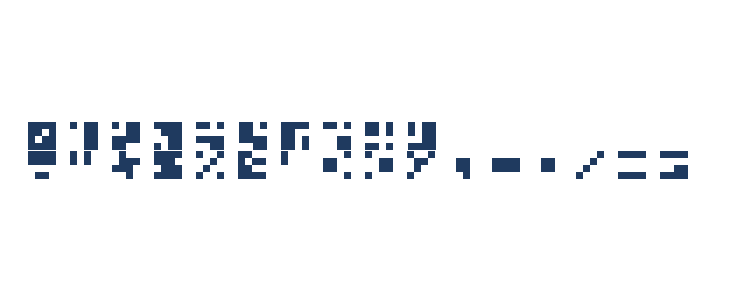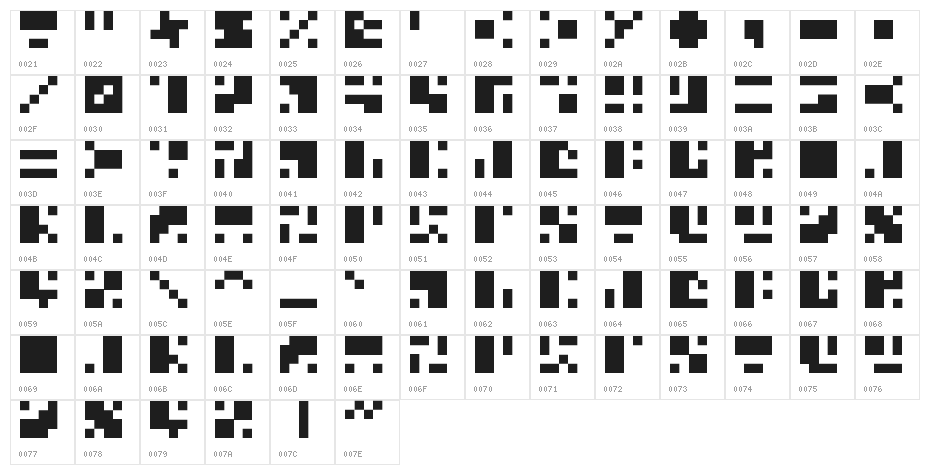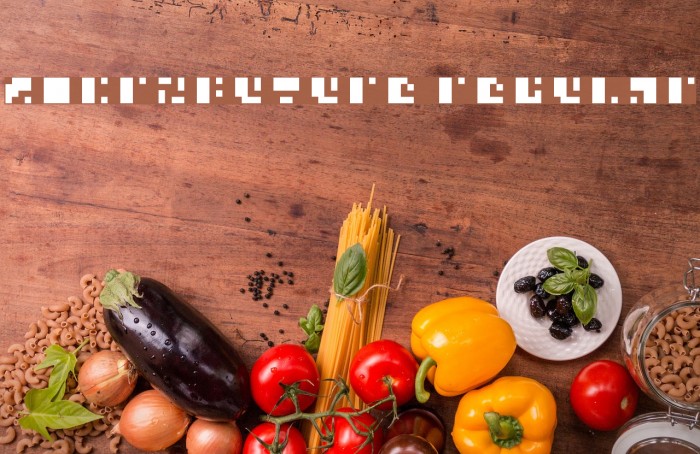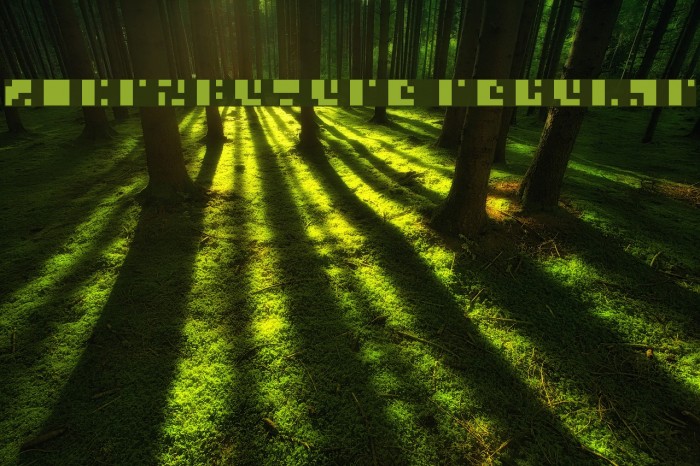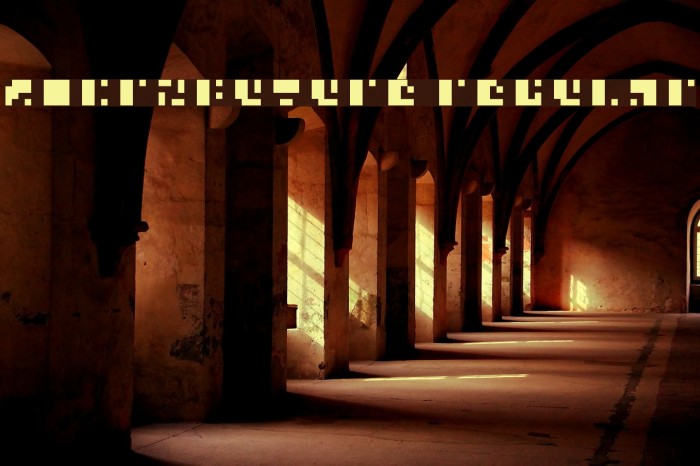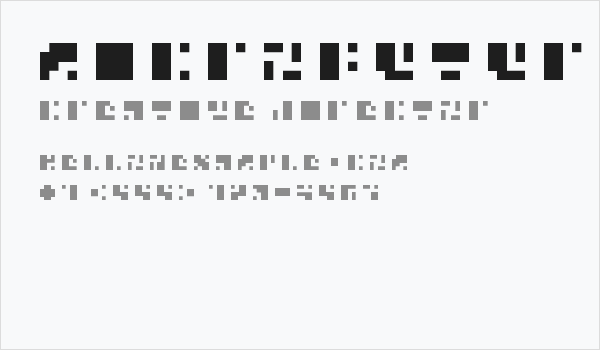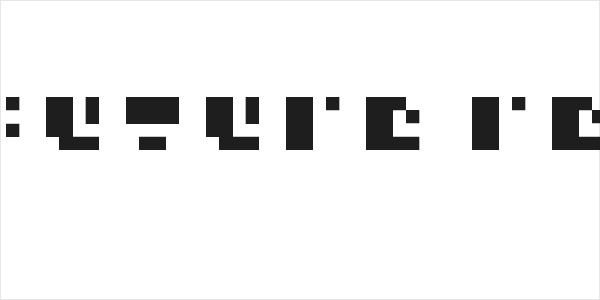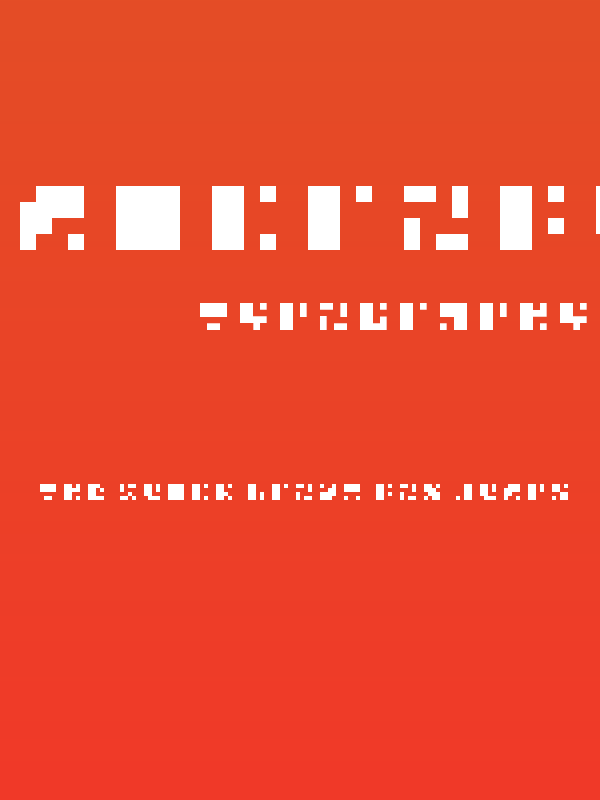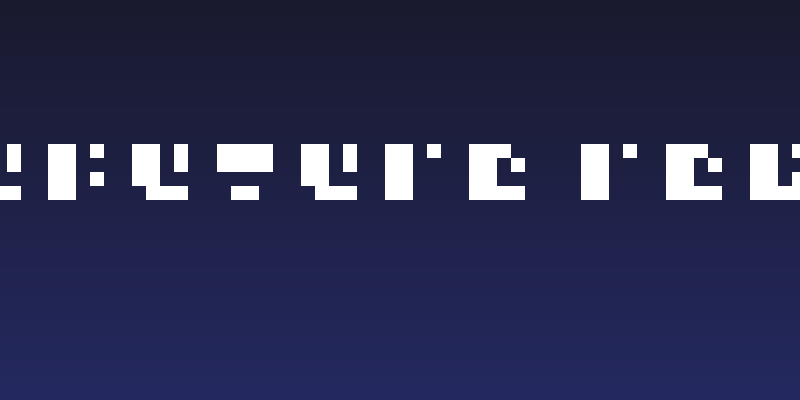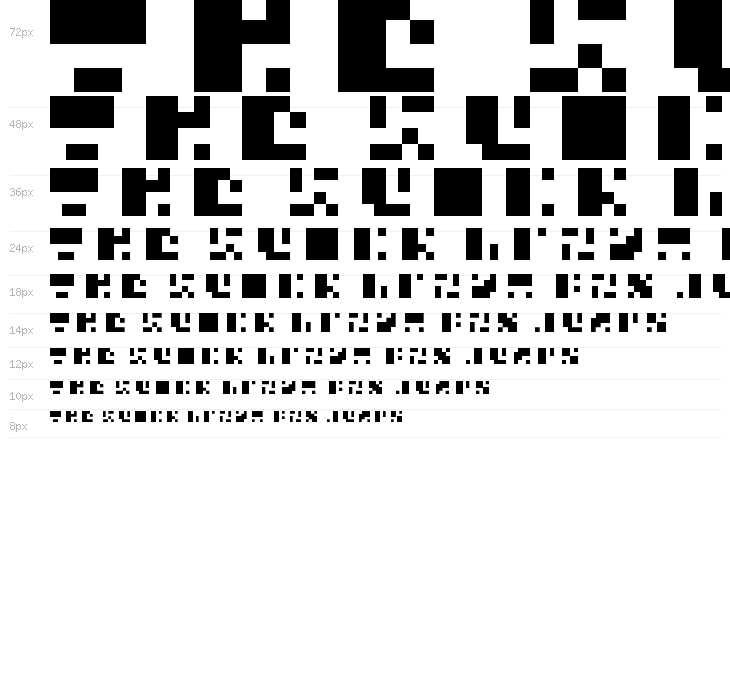
Microfuture Regular Font
Microfuture Regular Description
This font features a distinct pixelated style reminiscent of early digital displays and retro video games. Each character is constructed with a grid-like precision, giving it a blocky and futuristic appearance. The uniformity in the design creates a cohesive look across all characters, making it ideal for projects that require a tech-savvy or nostalgic aesthetic. The characters are evenly spaced, enhancing readability despite the unconventional design. This font is particularly suitable for digital interfaces, gaming titles, or any creative project that seeks to evoke a sense of digital nostalgia.
| Overall Style | Retro, Futuristic |
| Use Case | Headlines, Logos, Digital interfaces |
| Proposed Projects | Perfect for video game titles, tech-themed posters, digital art projects, and retro-style branding. |